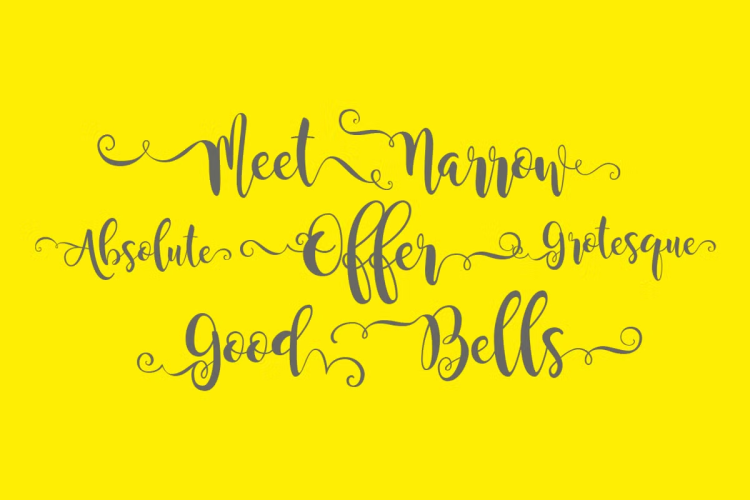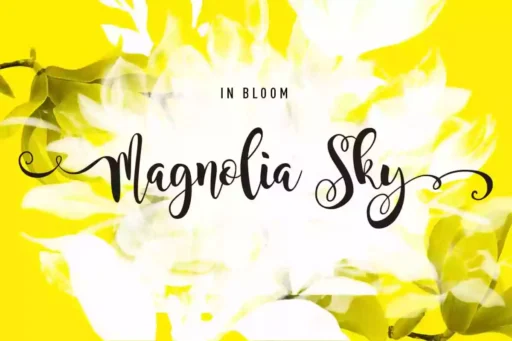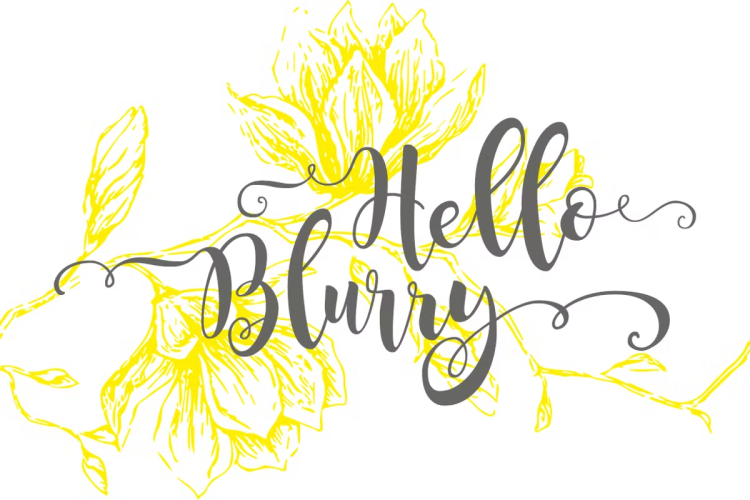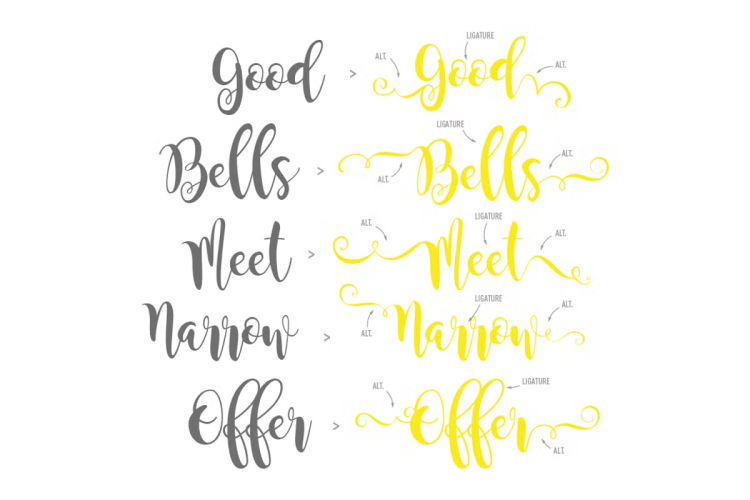
Magnolia Sky Font
Magnolia Sky, born from the fluid lines of this brush pen, is much more than a font. It’s an example of class and timelessness. The elegant flow of its continuous curves and delicate lines brings it elegance while inspiring any creative projects it adorns.
Designed with exaggerated care, Magnolia Sky eludes a natural beauty that makes it stand out from its kind. Each letter, one after the other, without interruption, is a visual rhythm that makes the text readable and sweet.
Attaining Magnolia Sky’s maximized function implies a diversity of alternate glyphs and ligatures. These extra elements allow designers to customize and individualize their projects, allowing them to create something truly theirs.
Whether you’re a seasoned designer or just starting your creative journey, Magnolia Sky offers a seamless experience, making it easy to bring your vision to life. Its effortless charm and timeless appeal make it a must-have addition to your font collection.
Smooth Script: Designed with a brush pen, Magnolia Sky boasts smooth, flowing strokes that exude elegance and grace.
Alternate Glyphs: Unlock a variety of alternate glyphs to add flair and personality to your designs, allowing for endless customization possibilities.
Ligatures: Enhance readability and visual appeal with ligatures that seamlessly connect characters, creating a more polished and cohesive look.
Timeless Elegance: With its classic yet contemporary design, Magnolia Sky transcends trends, ensuring your designs remain stylish and relevant for years.
Embrace the beauty and versatility of Magnolia Sky, and let your creativity soar to new heights.
Magnolia Sky Font is a Script And Handwritten font that brings a professional and versatile look to your projects. Magnolia Sky, born from the fluid lines of this brush pen, is much more than a font.